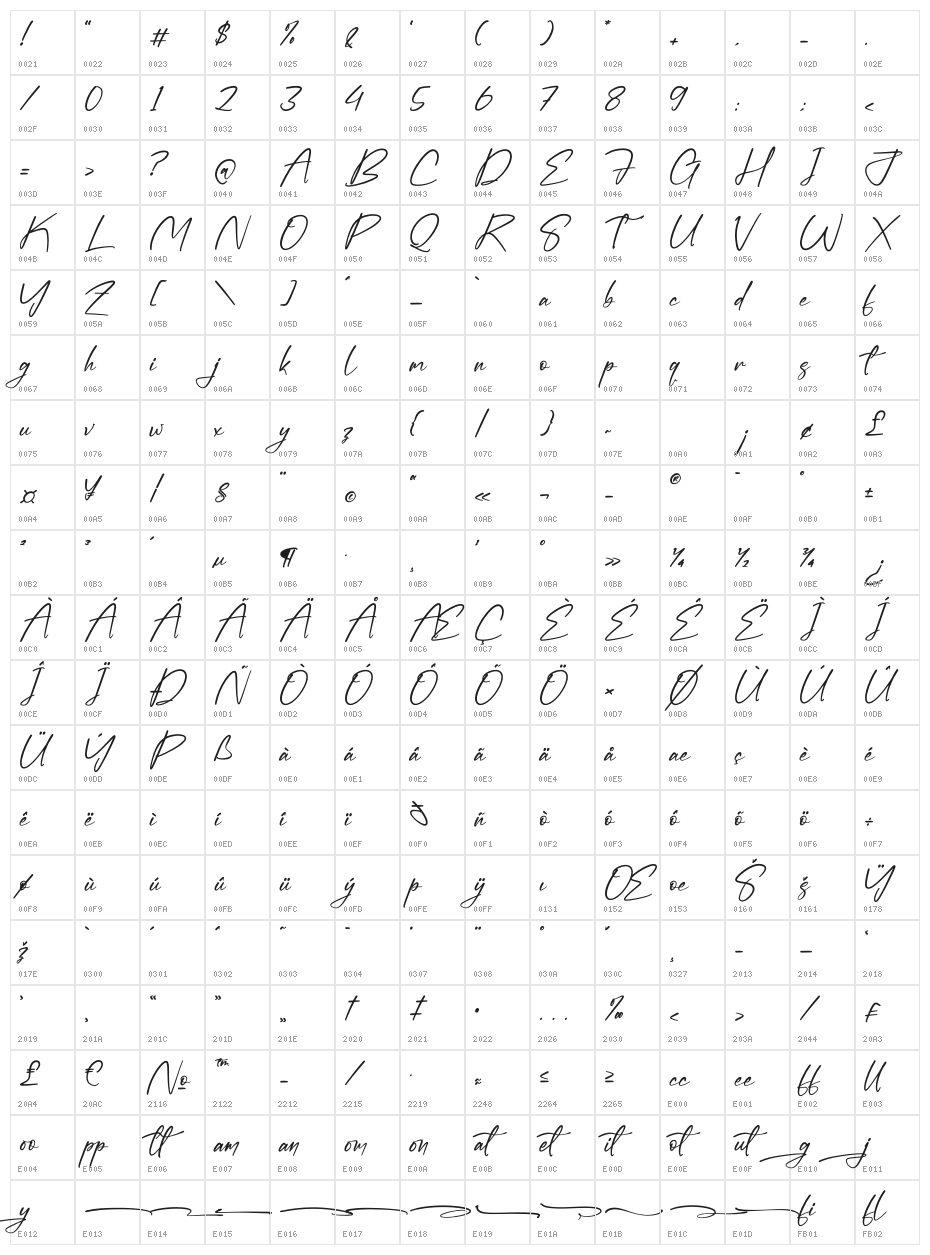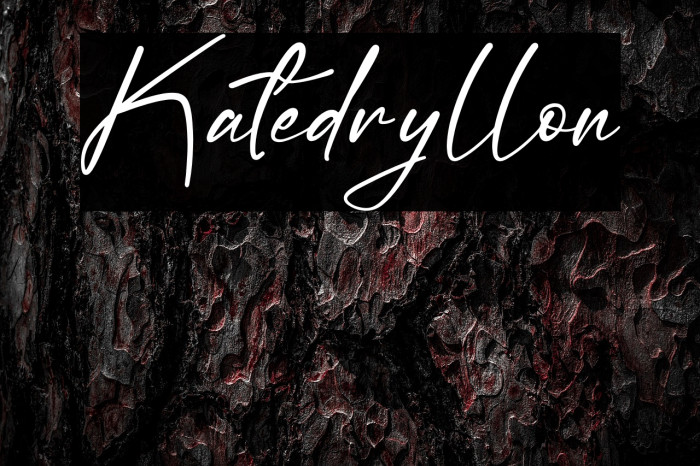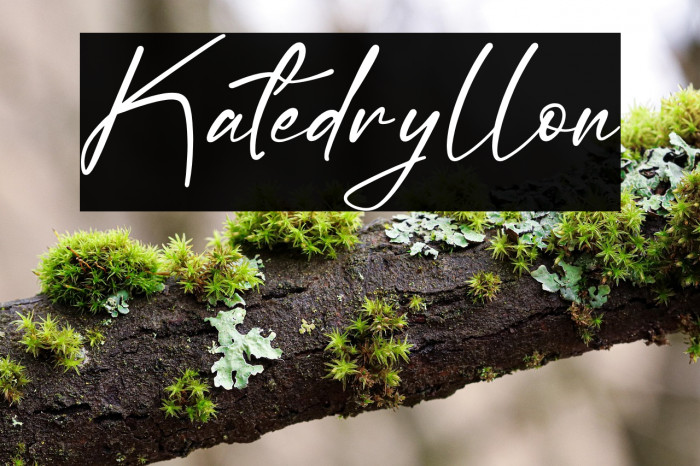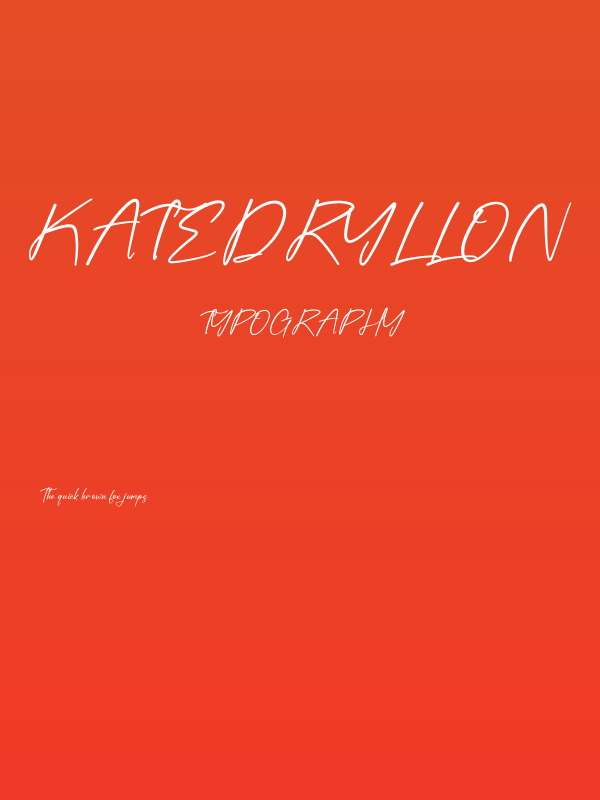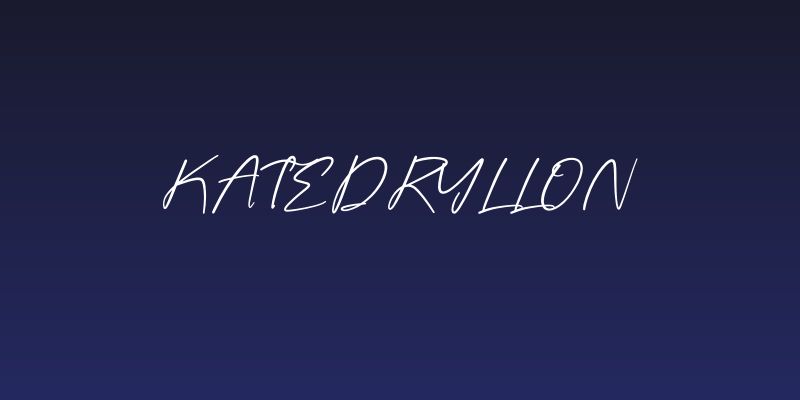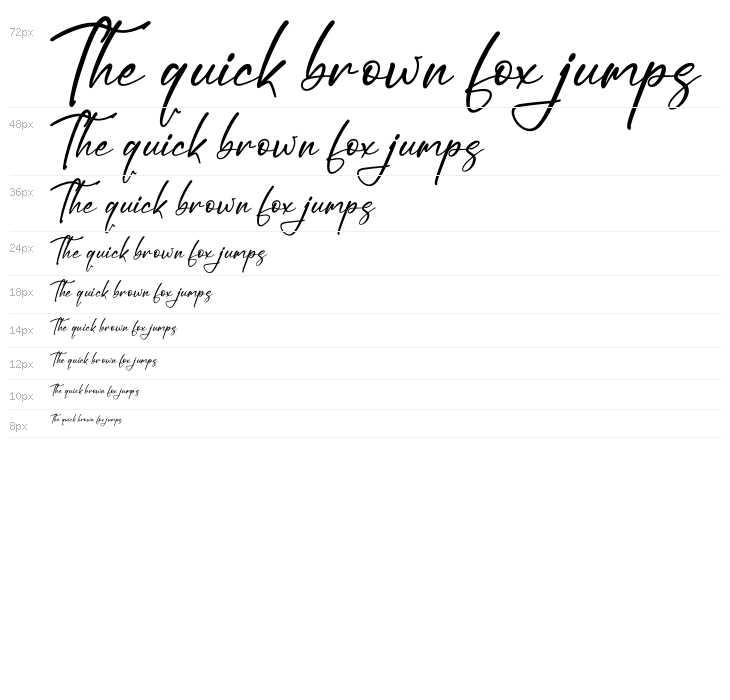
Katedryllon Font
Katedryllon Description
This font features a dynamic and fluid script style, characterized by its elegant and flowing letterforms. The uppercase letters are slightly more structured, while the lowercase letters exhibit a more cursive and connected appearance. The numerals maintain the same fluidity, ensuring consistency throughout. Special characters are seamlessly integrated, maintaining the overall aesthetic. The strokes are smooth and continuous, giving a sense of movement and grace. This font is ideal for projects that require a personal touch, such as invitations, greeting cards, or branding materials.
| Overall Style | Elegant, Fluid, Personal |
| Use Case | Invitations, Branding, Greeting Cards |
| Proposed Projects | Ideal for wedding invitations, personal branding, greeting cards, and elegant logos. |